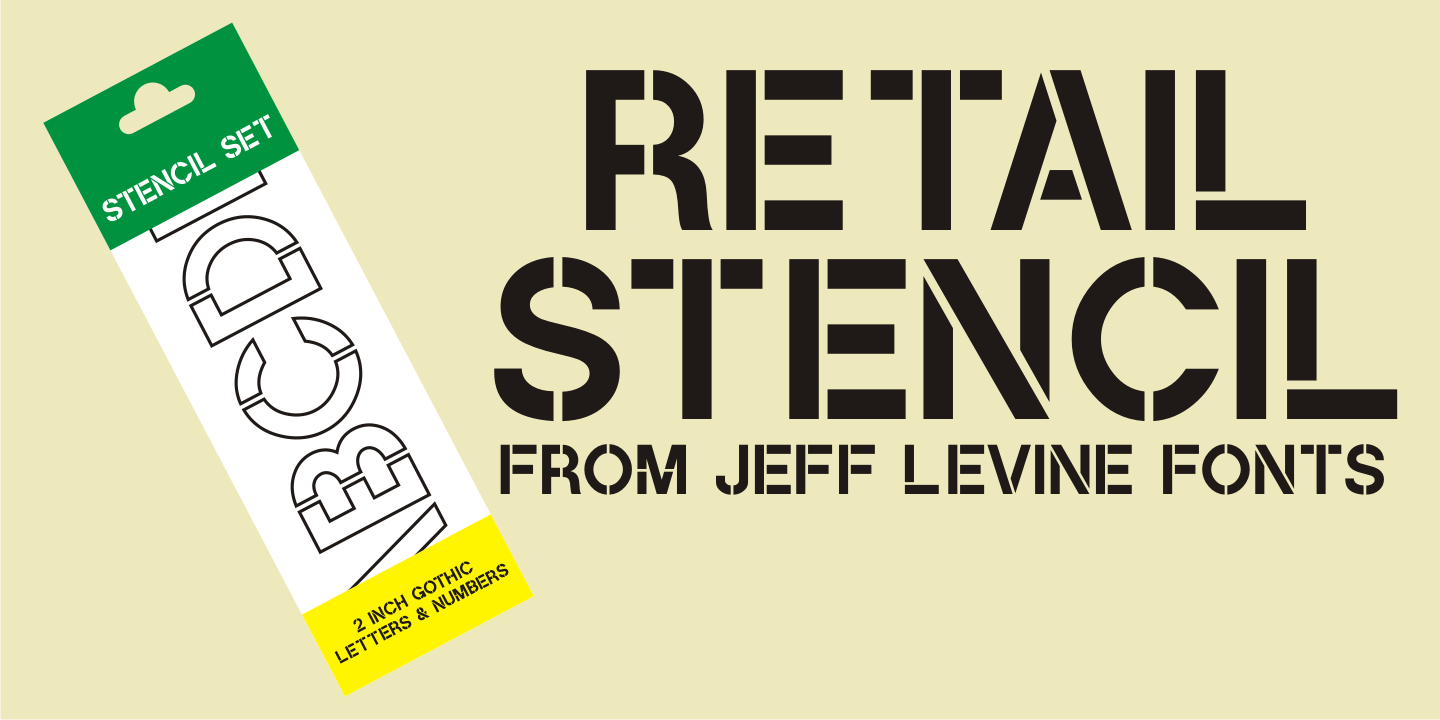
Retail Stencil
Retail Stencil JNL was modeled from a set of 2 inch lettering stencils manufactured during the 1980s. Although similar in design to Excess Baggage JNL, there are a number of character differences as to where the "breaks" (or division of the stencil parts of the character) are located.